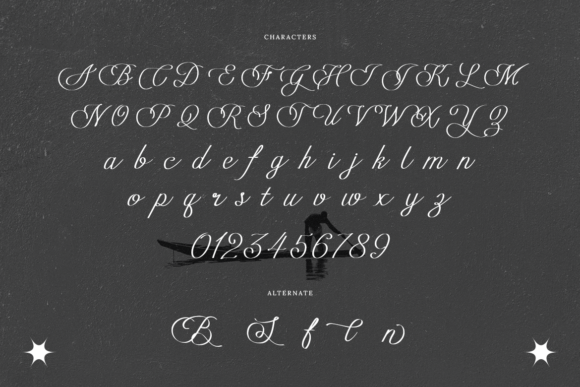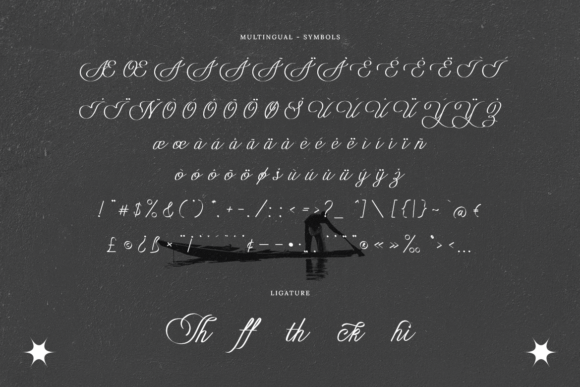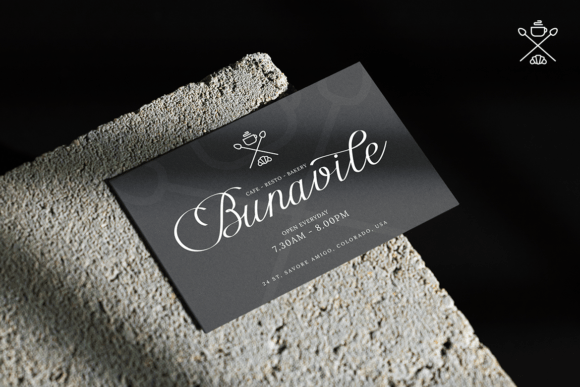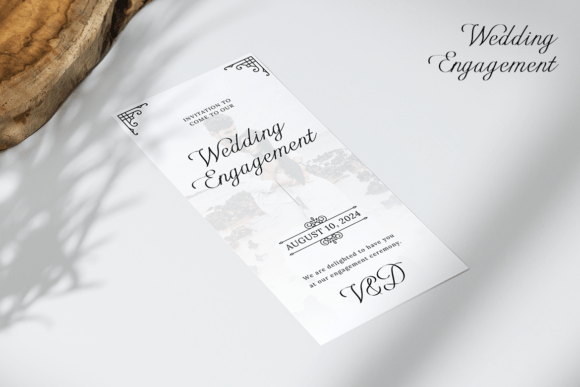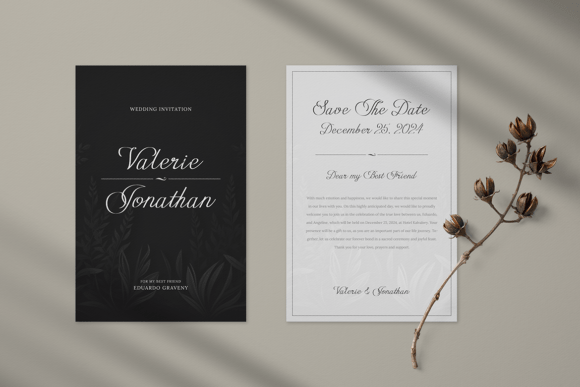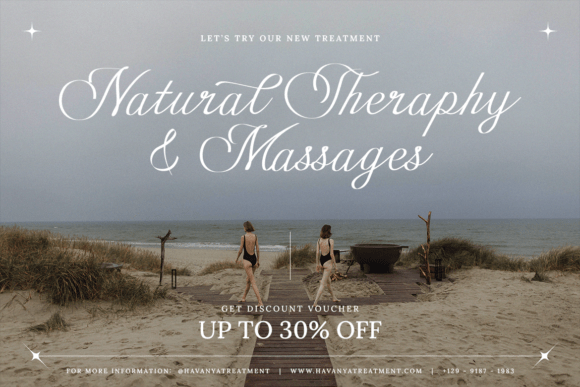
Introducing Blassein Font: Elevate Your Designs with Elegance and Sophistication
In the world of typography, a well-crafted font can make all the difference in elevating your designs from ordinary to extraordinary. For designers and crafters seeking a sophisticated script appearance, Blassein Font is an exceptional choice. This stunning calligraphic typeface is inspired by classic formal script lettering, offering a beautiful blend of elegance and refinement.
The Characteristics of Blassein Font
Blassein Font boasts a range of distinctive features that make it an ideal choice for formal and decorative compositions. Some of its key characteristics include:
- Flowing Strokes: Blassein Font features smooth, flowing strokes that create a sense of movement and fluidity.
- Refined Curves: The font’s refined curves add a touch of sophistication and elegance to any design.
- Expressive Swashes: The inclusion of expressive swashes allows for a high degree of creativity and customization.
These characteristics combine to create a typographic rhythm that is both elegant and graceful. Whether you’re working on a wedding invitation, branding project, or editorial headline, Blassein Font is sure to impress.
What Sets Blassein Font Apart
Blassein Font is more than just a beautiful typeface – it’s a comprehensive design solution. Some of the features that set it apart include:
- Uppercase, Lowercase, Numerals, and Punctuation: The font includes a full range of characters, ensuring that you have everything you need to create stunning designs.
- Stylistic Alternates: With stylistic alternates, you can add variety and interest to your designs.
- Ligatures: The font’s ligatures allow for smooth letter connections, creating a seamless and refined appearance.
- Multilingual Support: Blassein Font supports multiple languages, making it a versatile choice for designers working on international projects.
Using Blassein Font in Your Designs
Blassein Font is incredibly versatile, making it suitable for a wide range of design applications. Some ideas for using this beautiful font include:
- Wedding Invitations: Create stunning wedding invitations that set the tone for a sophisticated and elegant celebration.
- Branding Projects: Use Blassein Font to add a touch of refinement and luxury to your branding projects.
- Beauty Packaging: Elevate your beauty packaging designs with the font’s elegant and sophisticated appearance.
- Editorial Headlines: Add a touch of glamour to your editorial headlines with Blassein Font.
- Social Media Graphics: Create eye-catching social media graphics that showcase your brand’s personality and style.
- Greeting Cards: Design beautiful greeting cards that feature Blassein Font’s elegant script appearance.
- Logo Design: Use Blassein Font to create a sophisticated and memorable logo for your brand.
Tips for Getting the Most Out of Blassein Font
To get the most out of Blassein Font, consider the following tips:
- Experiment with Swashes: Don’t be afraid to experiment with the font’s expressive swashes to add a touch of personality to your designs.
- Mix and Match: Combine Blassein Font with other typefaces to create a unique and visually appealing design.
- Pay Attention to Kerning: Take the time to adjust the kerning to ensure that your text looks smooth and refined.
By following these tips and taking advantage of Blassein Font’s comprehensive feature set, you can create stunning designs that showcase your creativity and skill.
Blassein Font is an exceptional choice for designers and crafters seeking a sophisticated script appearance. With its flowing strokes, refined curves, and expressive swashes, this beautiful calligraphic typeface is sure to elevate your designs to the next level. Whether you’re working on a wedding invitation, branding project, or editorial headline, Blassein Font is a versatile and elegant solution that’s sure to impress.